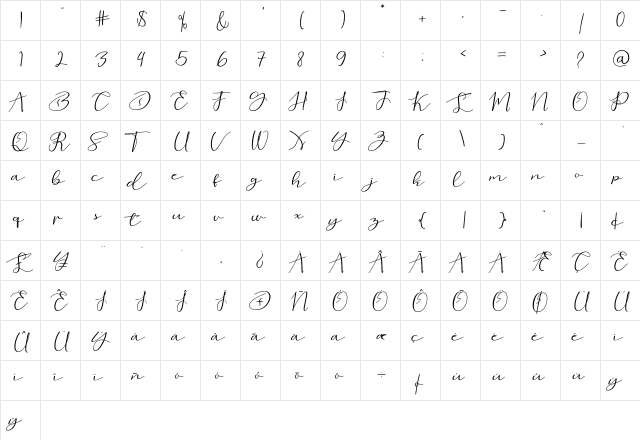
love beard Regular
| Foundry | mightype |
| Designer | munawir |
Design Context for love beard Typeface
love beard takes a measured approach to typography — its balanced proportions and neutral character make it a reliable workhorse for both digital and print work.